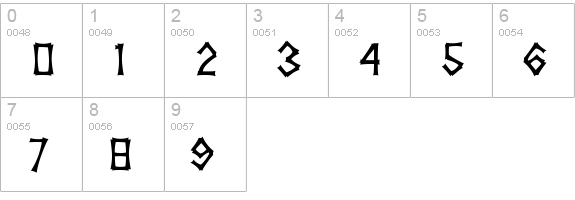
KonTikiHulaJF Font Details
KonTikiHulaJF font is a whimsical and playful typeface that exudes tropical vibes and island flair. With its fun and quirky design, this font is perfect for adding a touch of lightheartedness to your projects. Whether you are creating invitations, posters, or branding materials, KonTikiHulaJF will bring a sense of warmth and relaxation to your designs. The unique blend of bold lines and curvy elements gives KonTikiHulaJF a distinctive look that is both eye-catching and charming. Its versatility makes it suitable for a wide range of design applications, from party decorations to merchandise designs. Best of all, KonTikiHulaJF is available for free download at FontsMarket.com. So go ahead and add a touch of tropical fun to your projects with this delightful font!